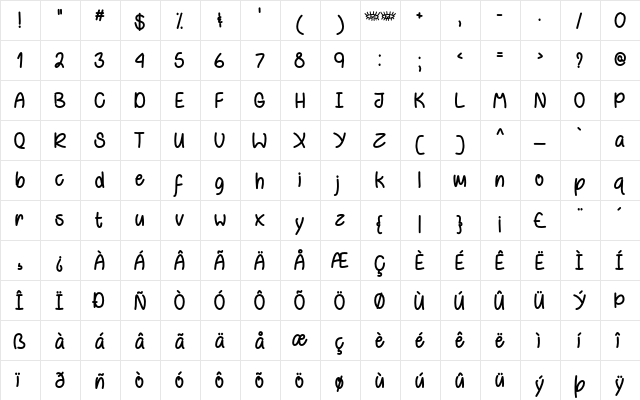
Behind Violet Eyes Regular
Design Context for Behind Violet Eyes Typeface
Behind Violet Eyes is a composed and adaptable typeface that performs quietly and consistently across a wide range of design contexts.